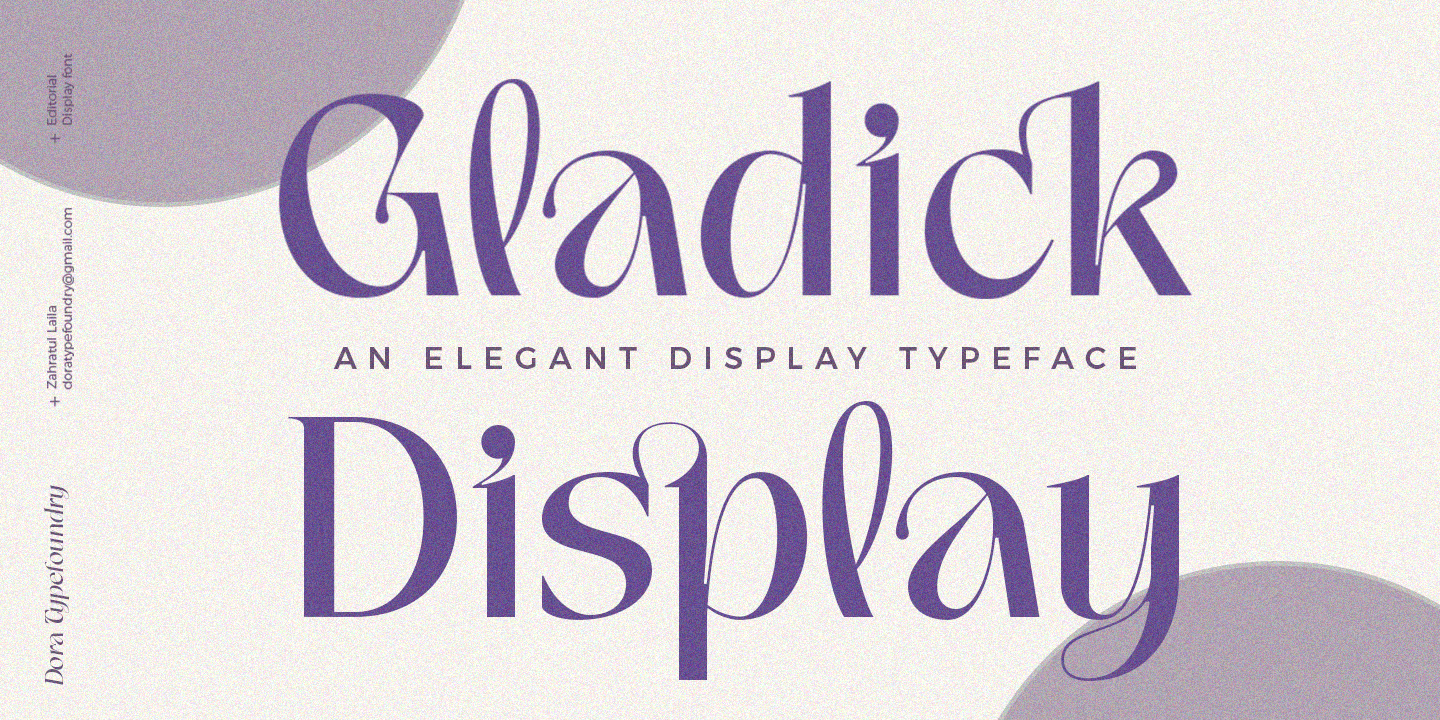
Gladick Display Font is ideal for striking headline typography, bold magazine covers, impactful poster designs, commanding advertising campaigns, powerful brand statements, dramatic book titles, attention-grabbing signage, influential corporate presentations, dynamic event promotions, and prestigious projects that demand maximum visual impact and authoritative presence with contemporary sophistication.
What makes Gladick Display Font so exciting is its commanding ability to create instant visual hierarchy through dramatically scaled letterforms that project confidence and editorial authority. This typeface embodies display typography excellence, featuring bold proportions and distinctive character details that ensure exceptional performance at large sizes while maintaining sophisticated refinement that elevates any design from ordinary to extraordinary with professional polish.
Gladick Display Font family encompasses multiple impactful variations: Regular, Bold, Light, Black, Condensed, Extended, Italic, and Ultra versions. Each style maintains the font's inherent display power while offering different levels of visual weight and presence, providing designers with comprehensive tools for creating dynamic typographic hierarchies that command attention and communicate brand authority across diverse high-impact applications.
The commanding presence of Gladick Display Font Free Download makes it exceptionally valuable for brands requiring strong visual communication and editorial authority. This font successfully combines impact with sophistication, making it perfect for companies that need to establish dominant market presence and communicate leadership through typography. Its powerful character works effectively across both large-scale digital displays and premium print publications, while its distinctive display aesthetic creates immediate recognition among audiences seeking authoritative information and prestigious brand experiences.